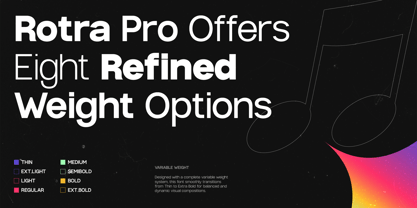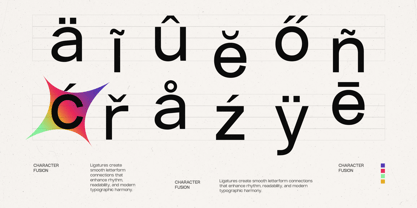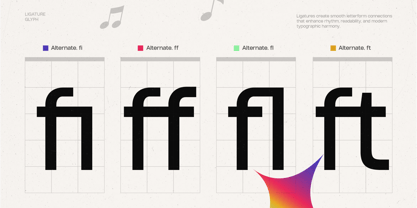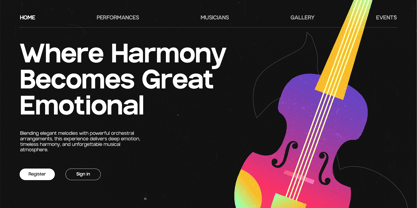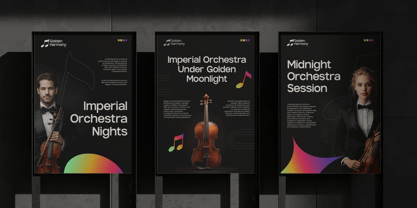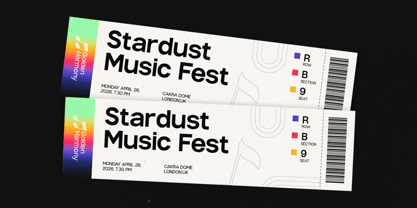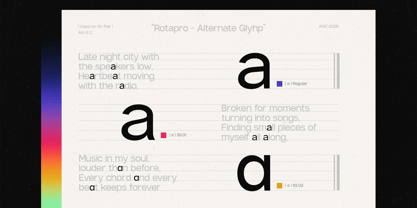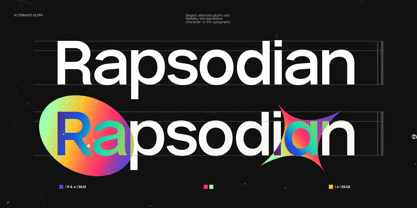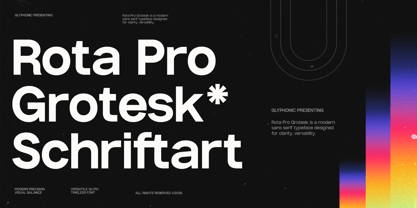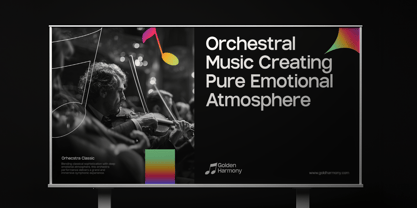
GC Rota Pro
A família de fontes GC Rota Pro foi desenhada por Muhammad Hafiizh Solana e publicada pela Onyx Studio. GC Rota Pro contém 8 estilos e opções de pacote familiar. Saiba mais sobre esta família
GC Rota Pro – Modern Grotesk Sans is a contemporary grotesk sans serif typeface built with clean geometry, balanced proportions, and refined modern detailing. Designed to deliver clarity and confidence, Rota Pro presents a versatile typographic voice that feels both functional and sophisticated.
With its neutral structure, sharp forms, and carefully crafted letterforms, GC Rota Pro creates a strong visual rhythm while maintaining exceptional readability. Inspired by the timeless principles of classic grotesk typography, it blends simplicity and precision to produce a modern aesthetic suitable for a wide range of creative applications.
As a variable typeface, GC Rota Pro offers flexible weight control, allowing designers to create seamless visual hierarchy across branding systems, editorial layouts, digital interfaces, and corporate communications. Its balanced construction ensures consistency across all weights while preserving a clean and contemporary character.
Features:
- Variable Font (Adjustable Weight Axis)
- Modern Grotesk Sans Construction
- Uppercase & Lowercase
- Numbers & Punctuation
- Clean & Neutral Letterforms
- Refined Geometric Structure
- Multilingual Support (170+ Languages)
GC Rota Pro — modern grotesk clarity with timeless precision and versatility.